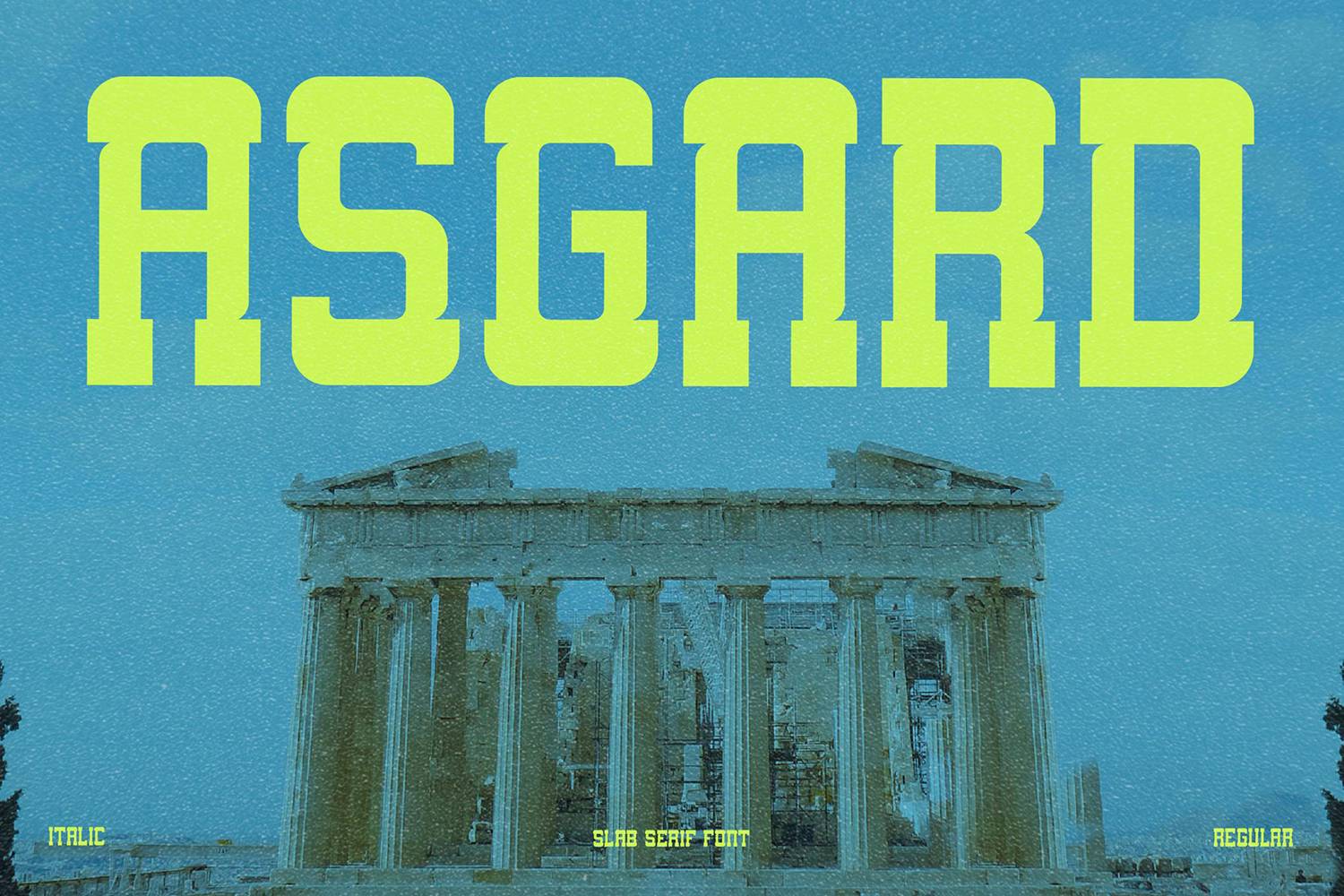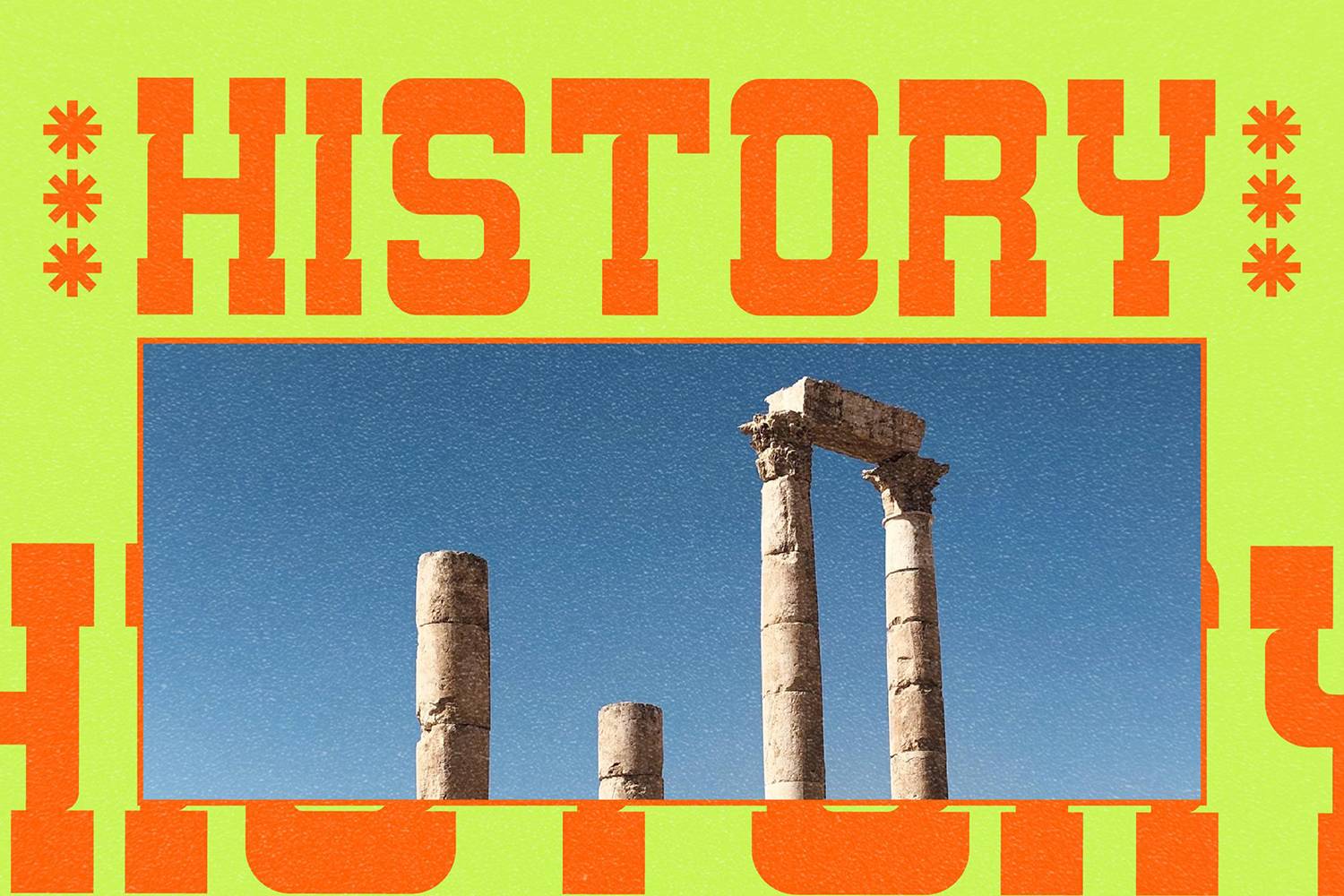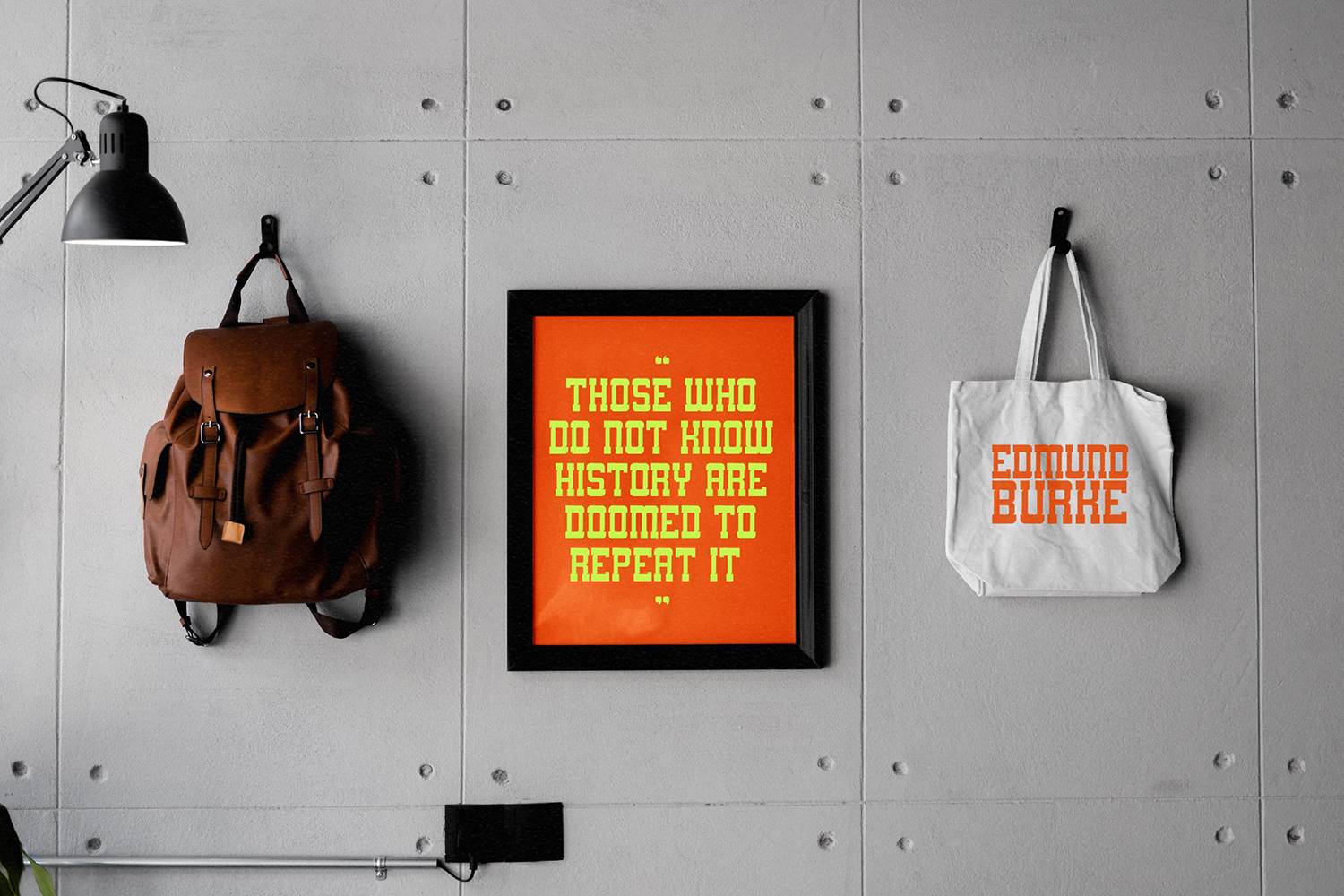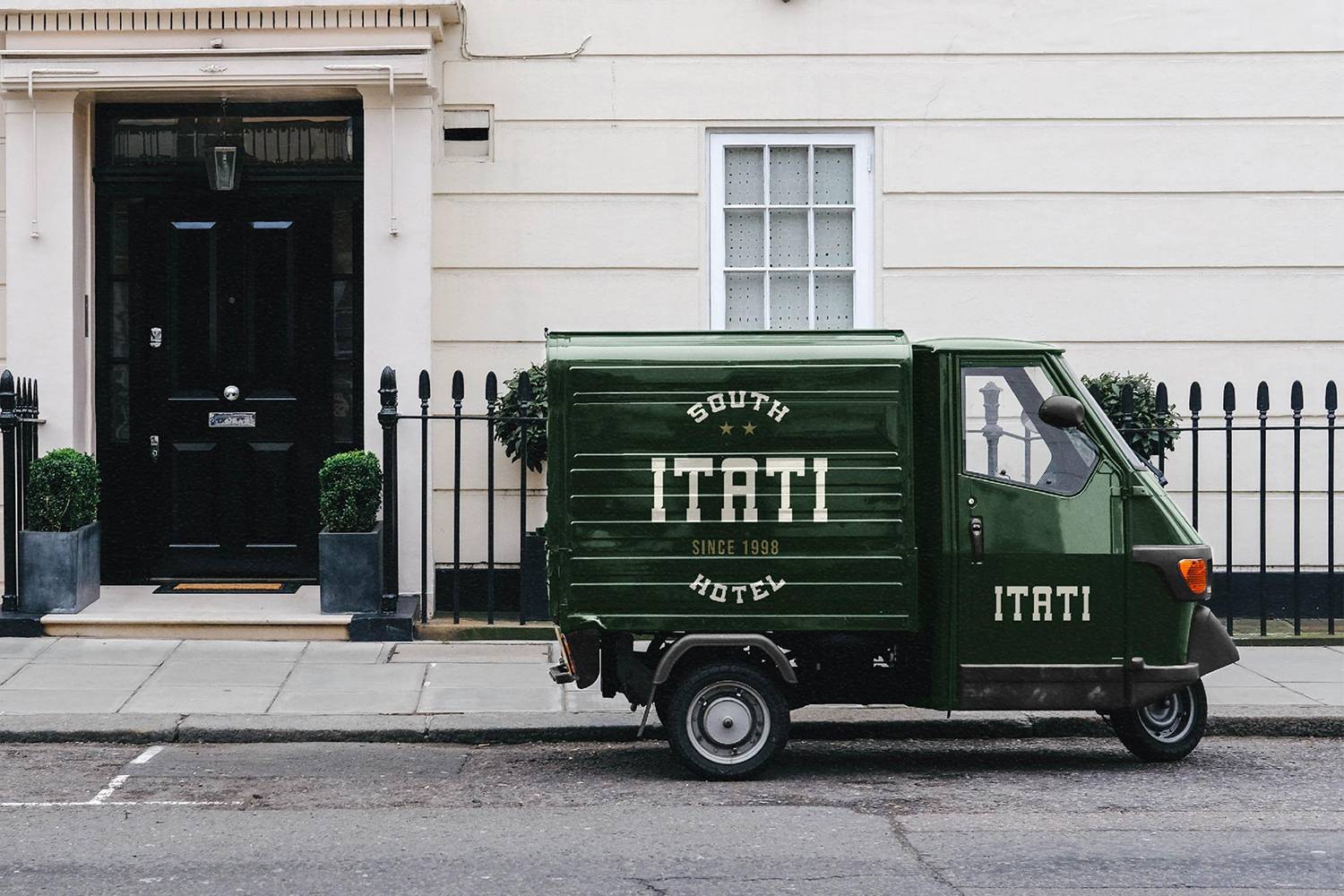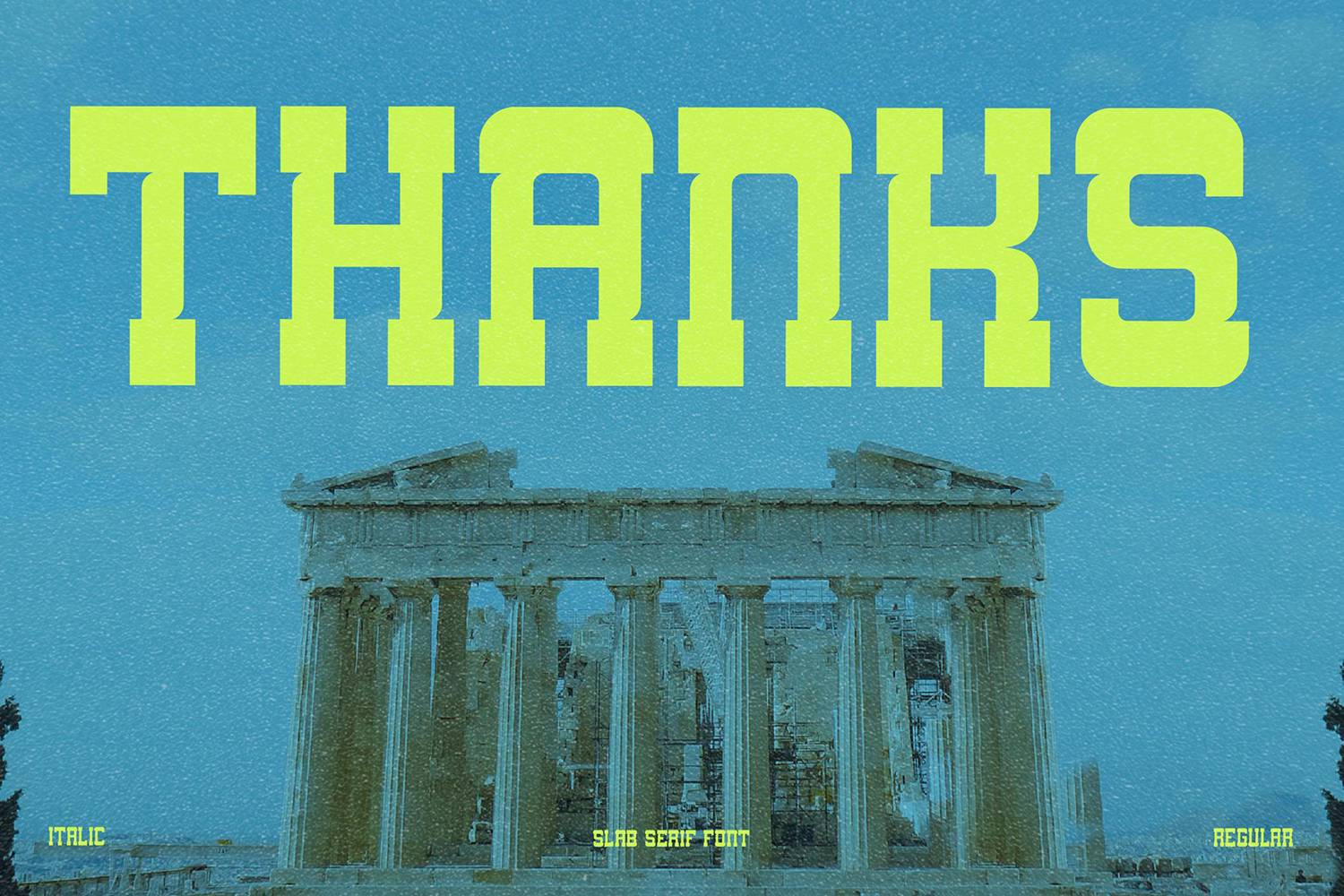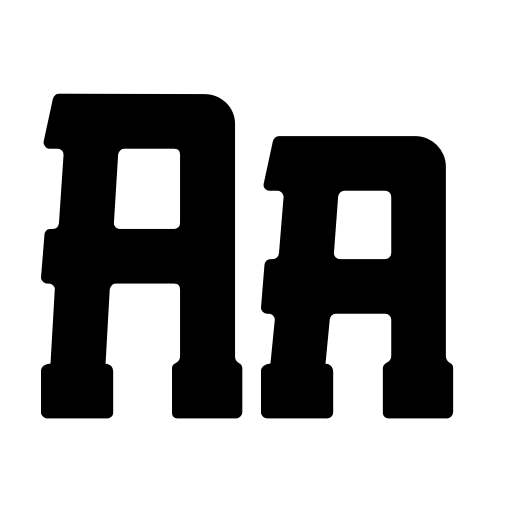
Asgard is a bold, condensed slab serif font with a strong, industrial feel, characterized by thick, blocky serifs and uniform stroke weight that create a sturdy and commanding presence. Its tall, narrow letterforms with squared edges and consistent structure convey a vintage, western-inspired style that works perfectly for impactful headlines, branding, and designs needing a rugged, confident look. This font is ideal for projects that want to communicate strength and boldness with a touch of classic charm.
Asgard Font
About Asgard Font